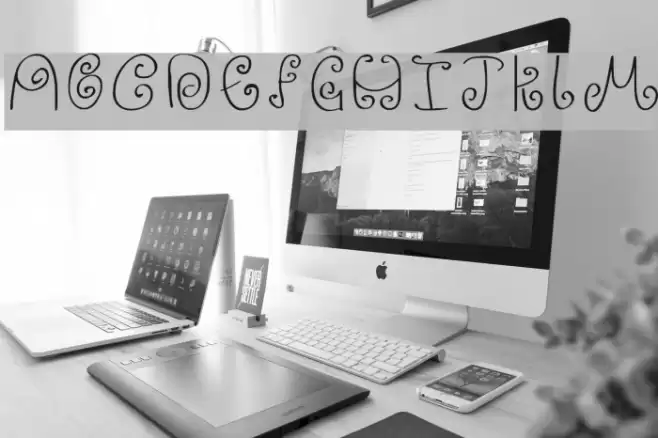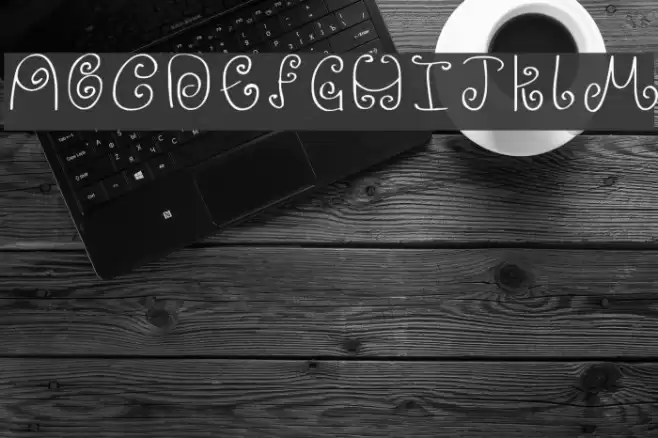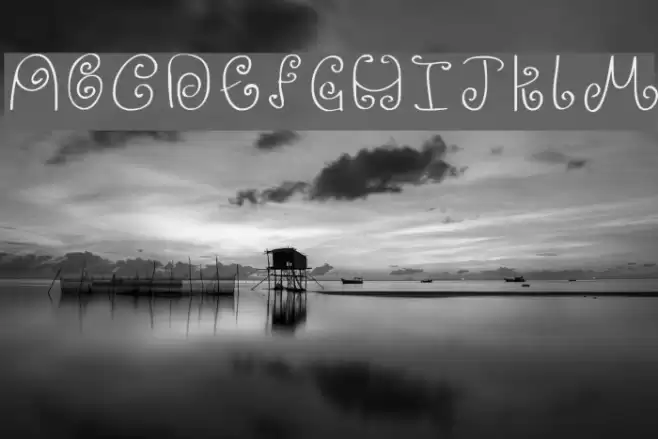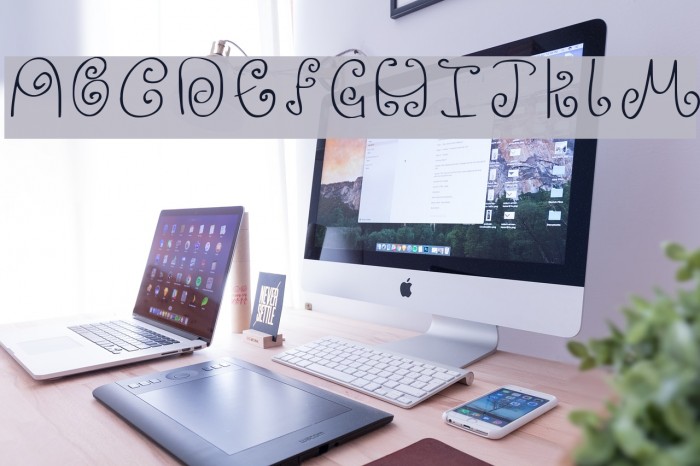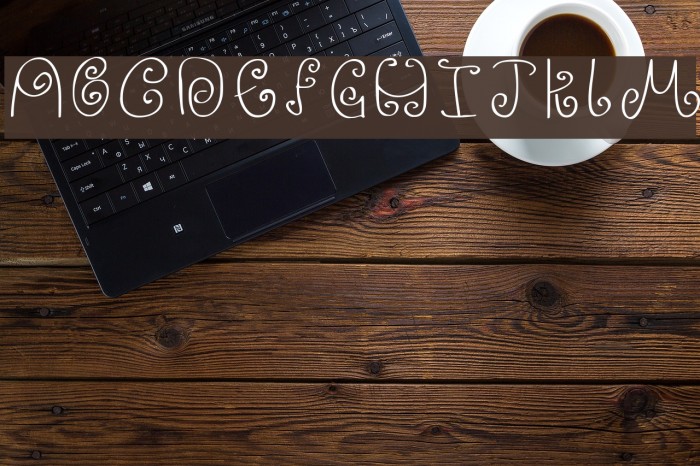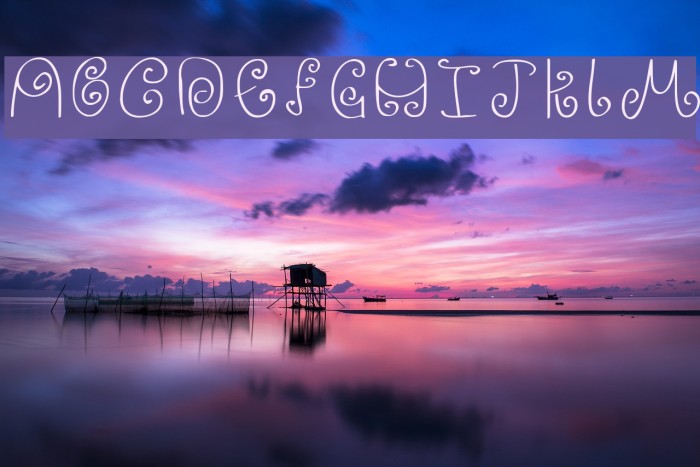
Ignoreme_demo Regular Font
Ignoreme_demo Regular Description
This font features a whimsical and playful design with each letter incorporating unique curls and swirls, giving it a lively and decorative appearance. The uppercase letters are particularly ornate, with exaggerated loops and curves that add a sense of movement and flair. The overall design is consistent across the alphabet, maintaining a cohesive style that is both eye-catching and distinctive. This font would be ideal for projects that require a touch of creativity and fun, such as children's book covers, playful branding, or artistic invitations.
A whimsical and playful font with decorative curls and swirls from Uncategorized fonts.
- Proposed Projects: Children's book covers, playful branding, artistic invitations.
- Use Case: Logos, Headlines